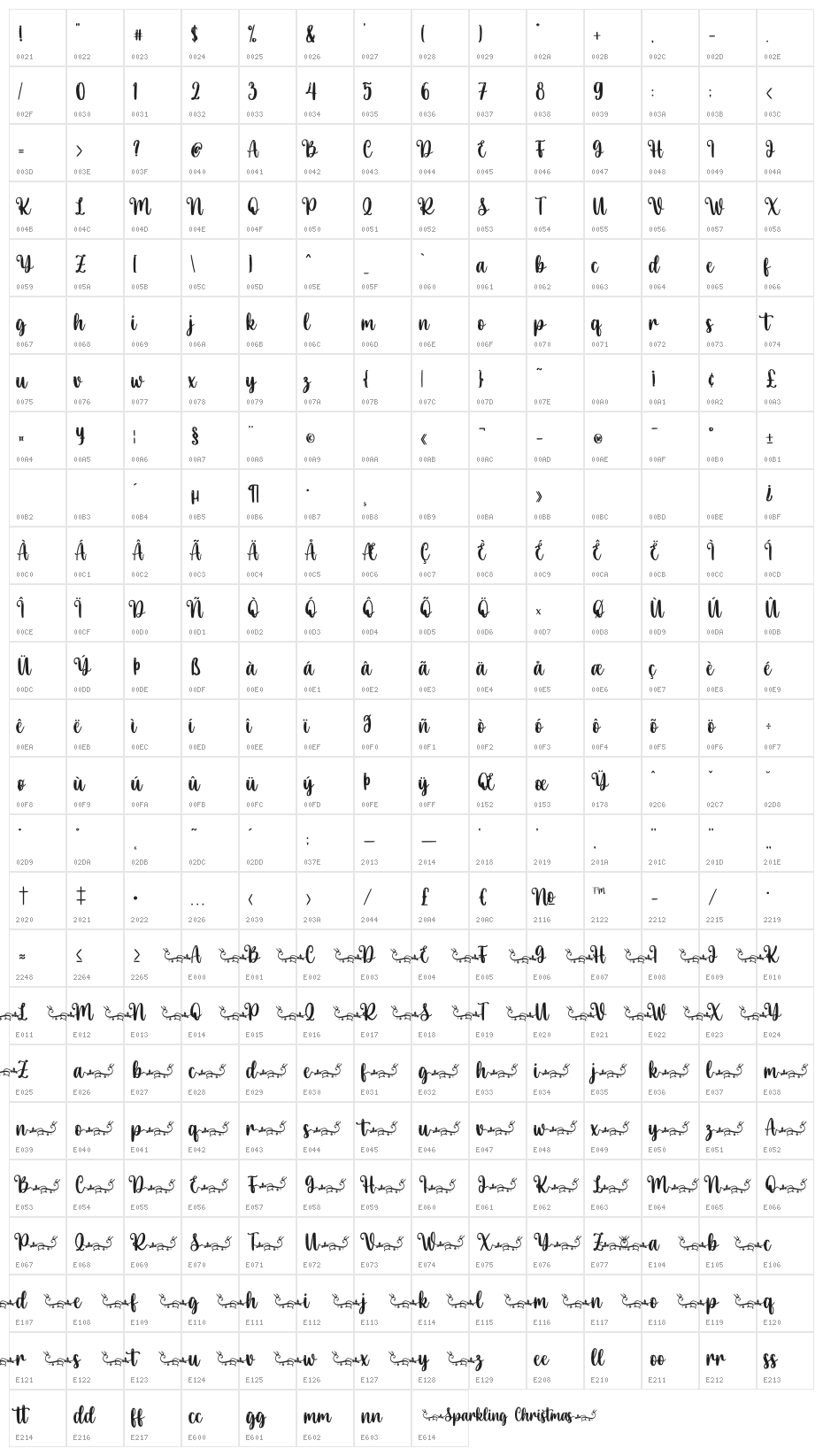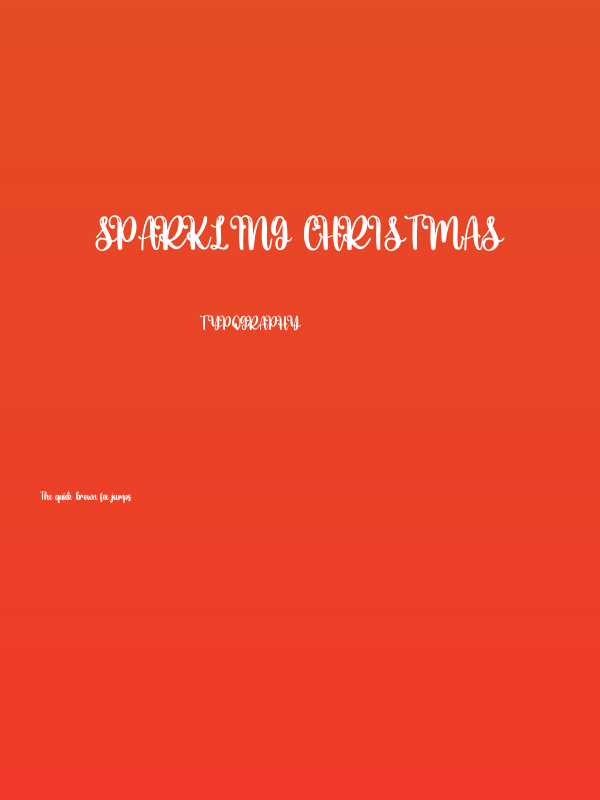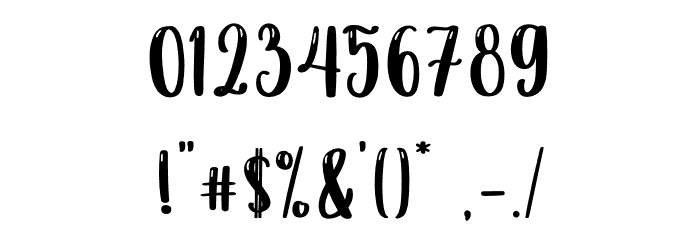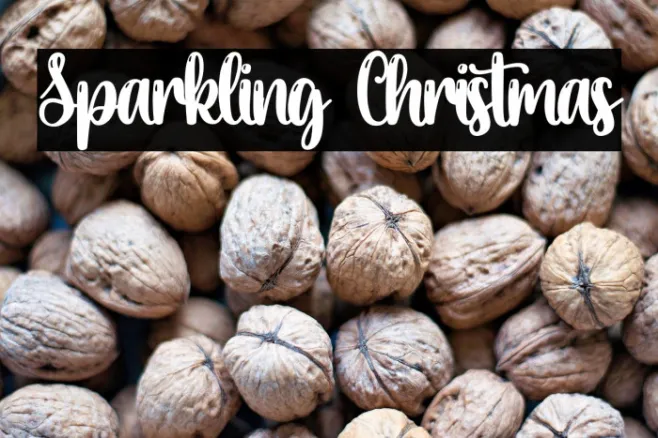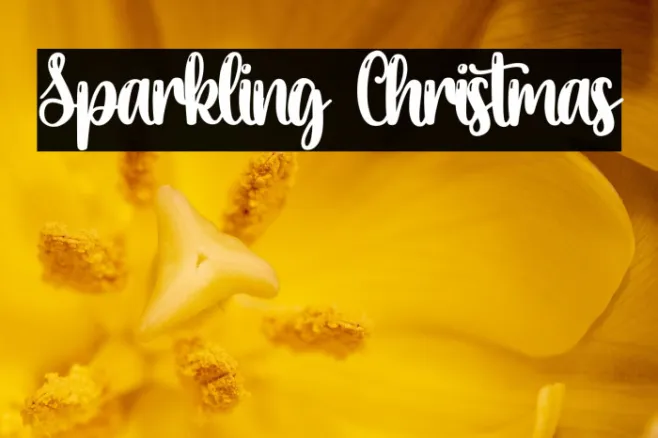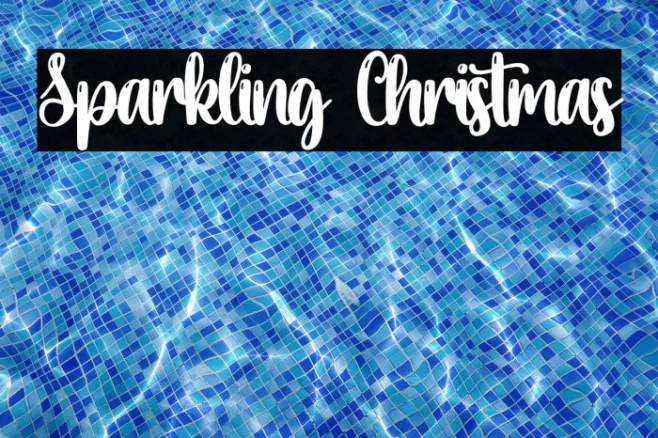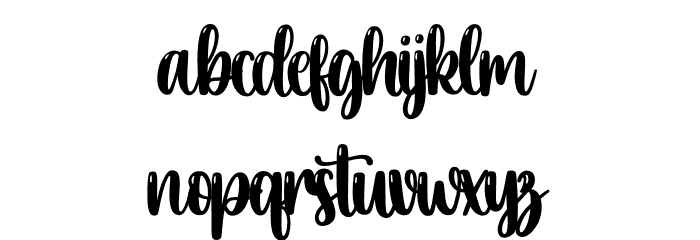
Sparkling Christmas Font
Sparkling Christmas Description
This font exudes a festive and playful charm, characterized by its flowing, cursive script style. The letters are elegantly connected, creating a sense of movement and fluidity. The strokes are bold and confident, with a slight slant that adds to its dynamic appearance. The uppercase letters are ornate and decorative, while the lowercase letters maintain a consistent, smooth flow. The numbers and special characters are crafted with the same attention to detail, ensuring a cohesive look across all elements. This font is perfect for adding a touch of whimsy and elegance to any design project.
| Proposed Projects | Ideal for holiday cards, festive invitations, decorative posters, and branding projects that require a touch of elegance and playfulness. |